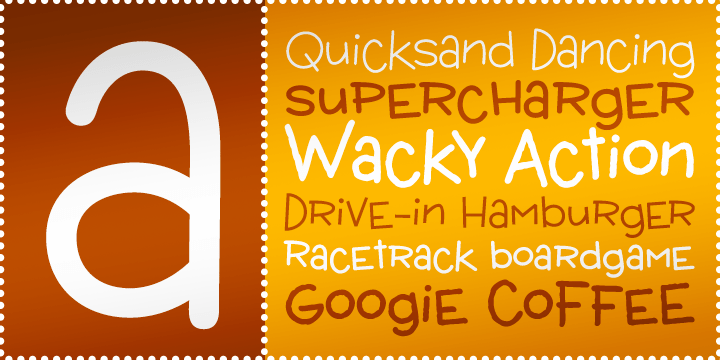
HomeFont BrosGroovy (1966-1978)Wacky Action BTN Groovy (1966-1978)Sans SerifRetro (1936-1965)Wacky Wacky Action BTN FacebookXPinterestWhatsApp 1 of 1 About Wacky Action BTN Wacky Action is non-toxic, safe for the kiddies and provides hours of fonty fun. Get wacky with Wacky Action!  DOWNLOAD NOW People also explored Freshe Font Direct Signature Font Victory Gustina Font Mountain Script Font The Sweet Font Kind Wizard Fu Font Sunderland Font Richardson Font Kliptones Font 223 0 TagsWacky Action BTN Font Previous articleElephantmen VariableNext articleZiggity LEAVE A REPLY Cancel reply Comment: Please enter your comment! Name:* Please enter your name here Email:* You have entered an incorrect email address! Please enter your email address here Website: Save my name, email, and website in this browser for the next time I comment. Personal Use Free City Tour Personal Use Free Read more about this font Castina Personal Use Free Read more about this font Abberancy Personal Use Free Read more about this font The Royal Personal Use Free Read more about this font BLOG Free Fonts Risk: Why Free Fonts Can Be Dangerous for Designers Free Fonts Risk: Why Free Fonts Can Be Dangerous for Designers Using free fonts is a common practice in web and graphic design. However, the... Top 7 Google Fonts Alternatives for Faster and Privacy-Friendly Web Design (2025) How to Cut Any Font on Cricut: Convert a Font to SVG (Free) Modern Sans-Serif Fonts That Brands Love in 2025